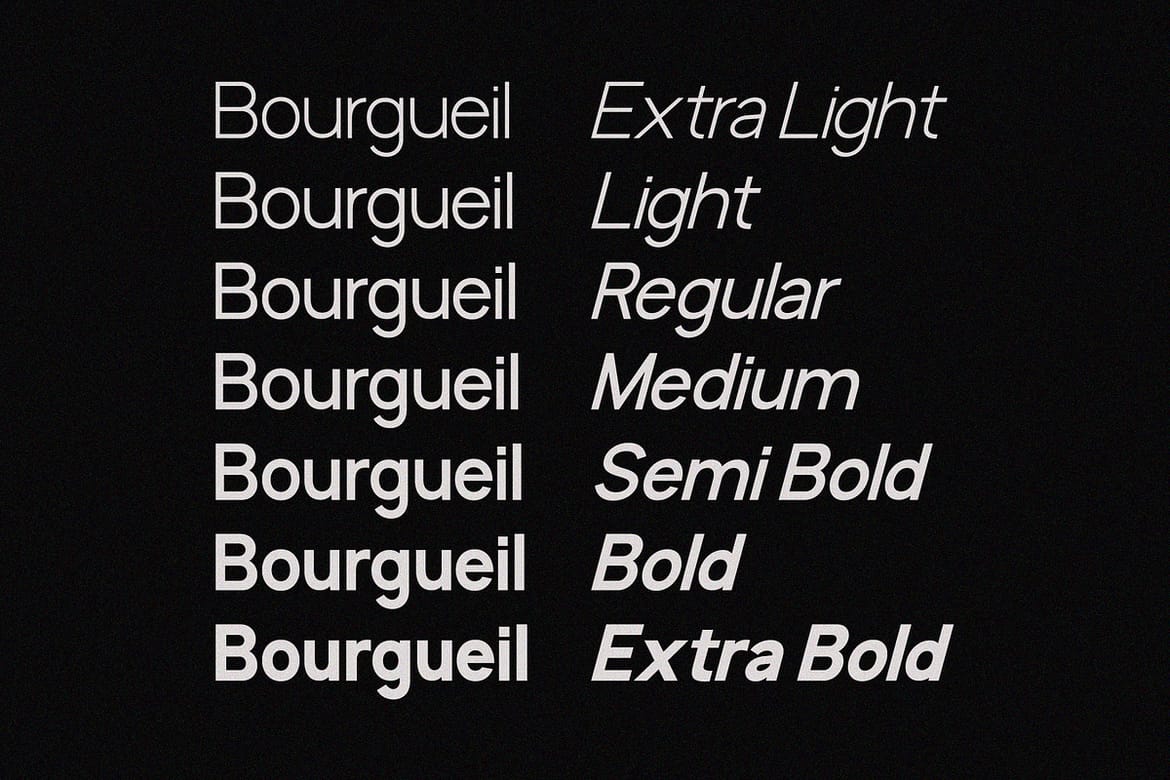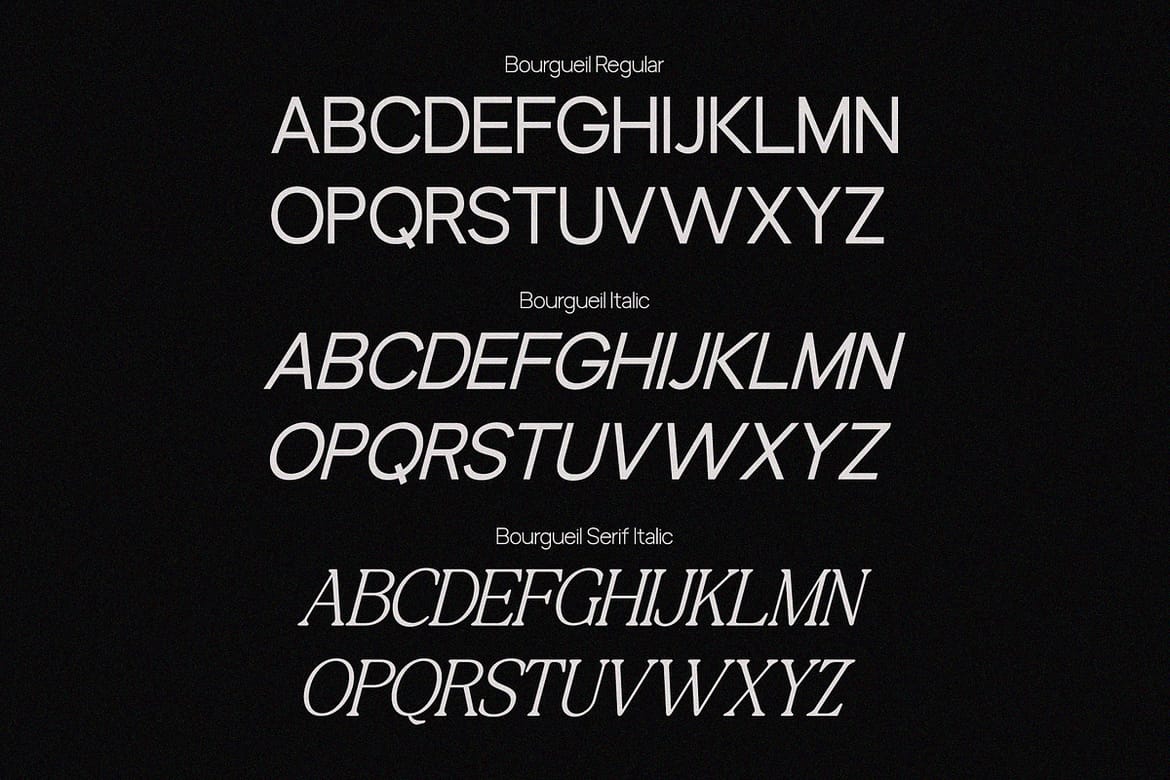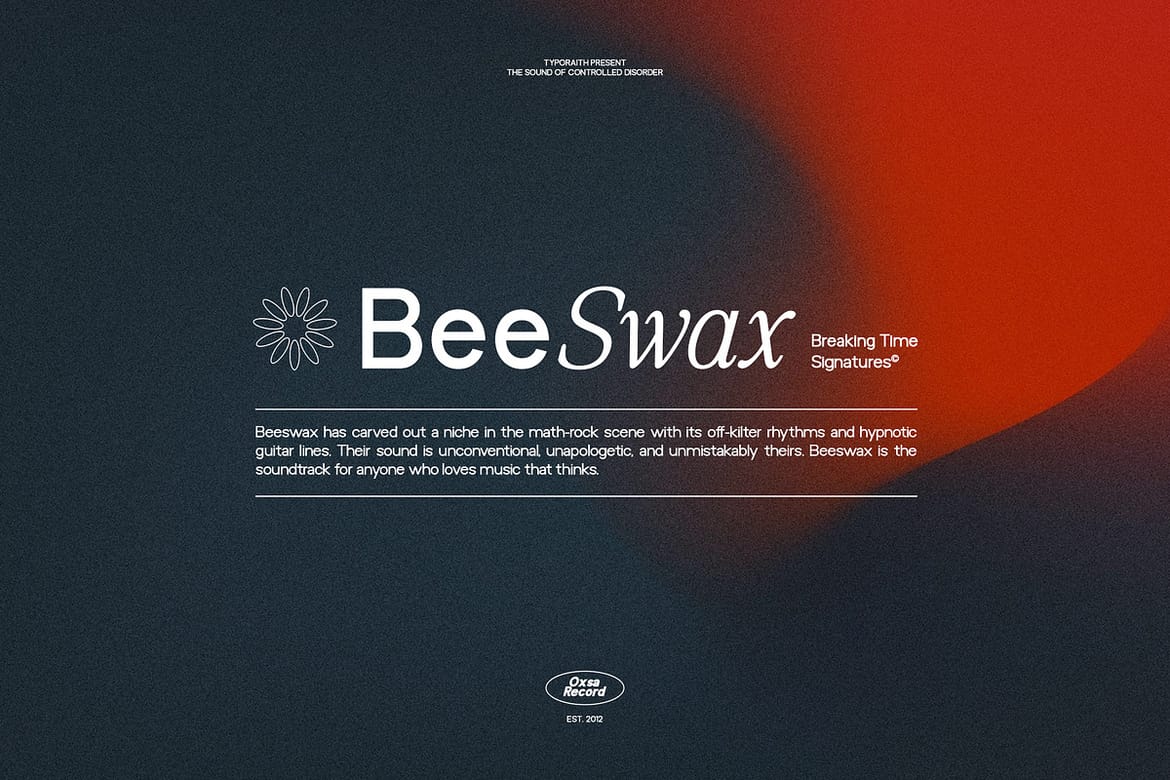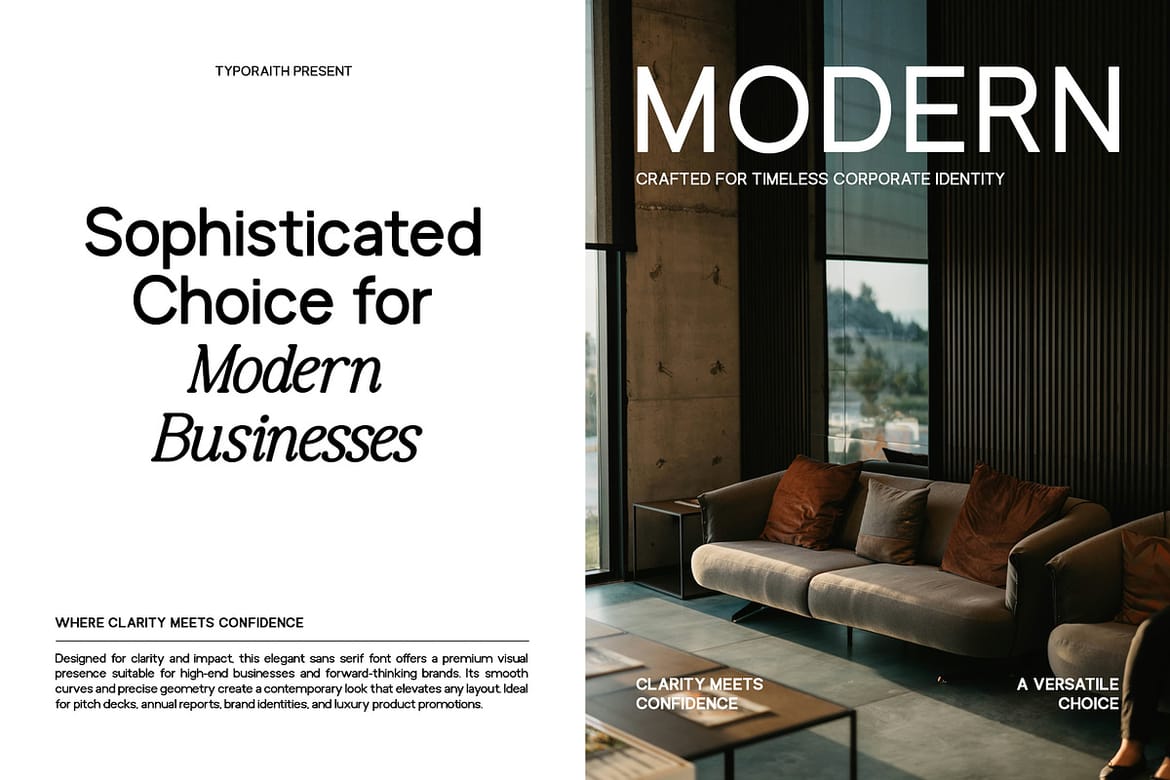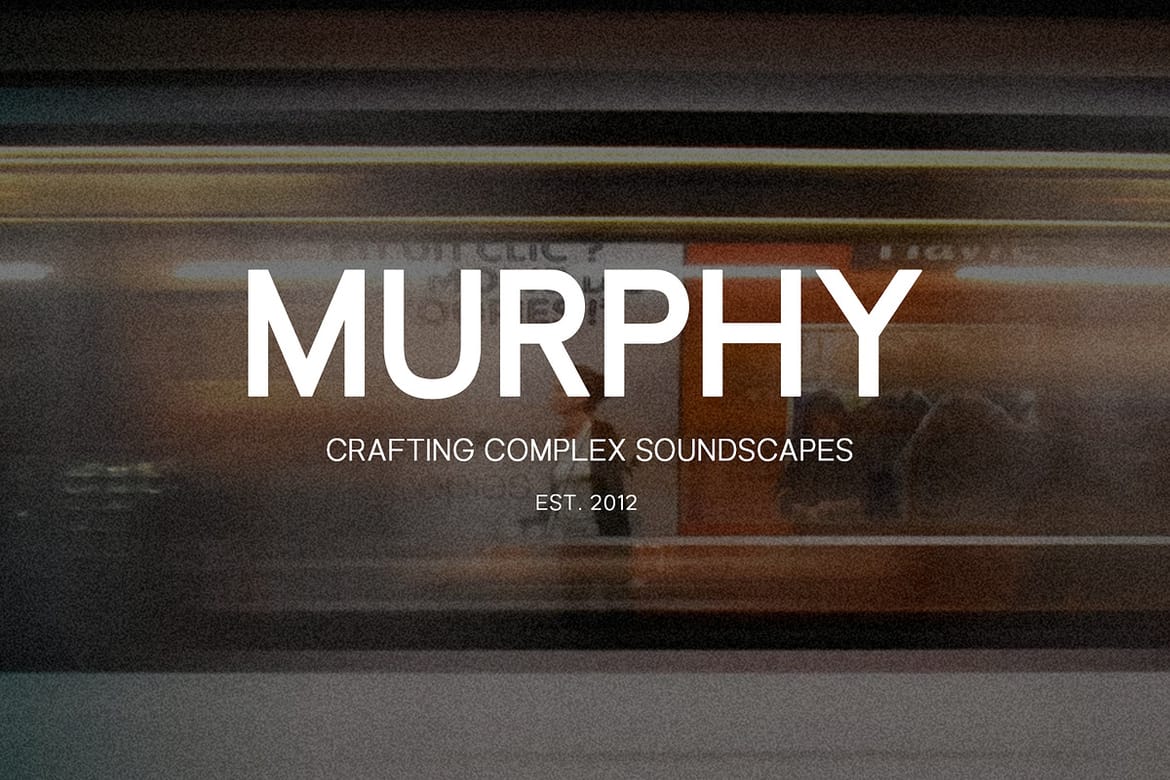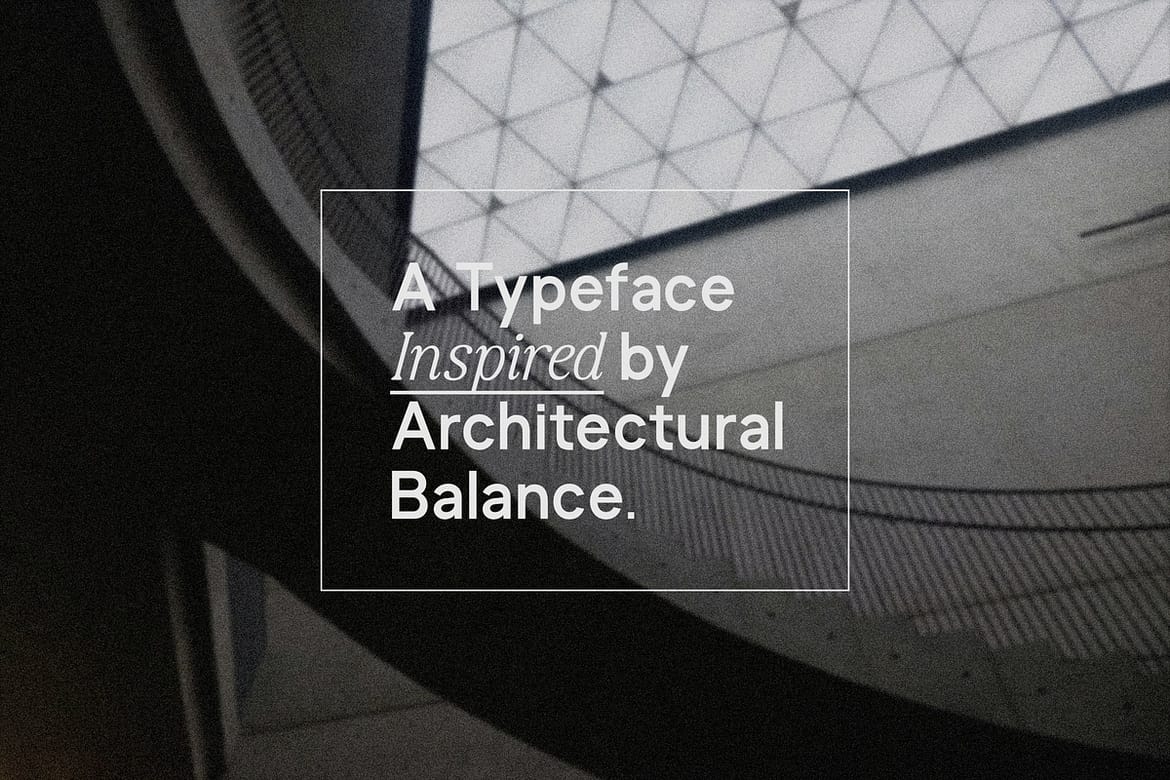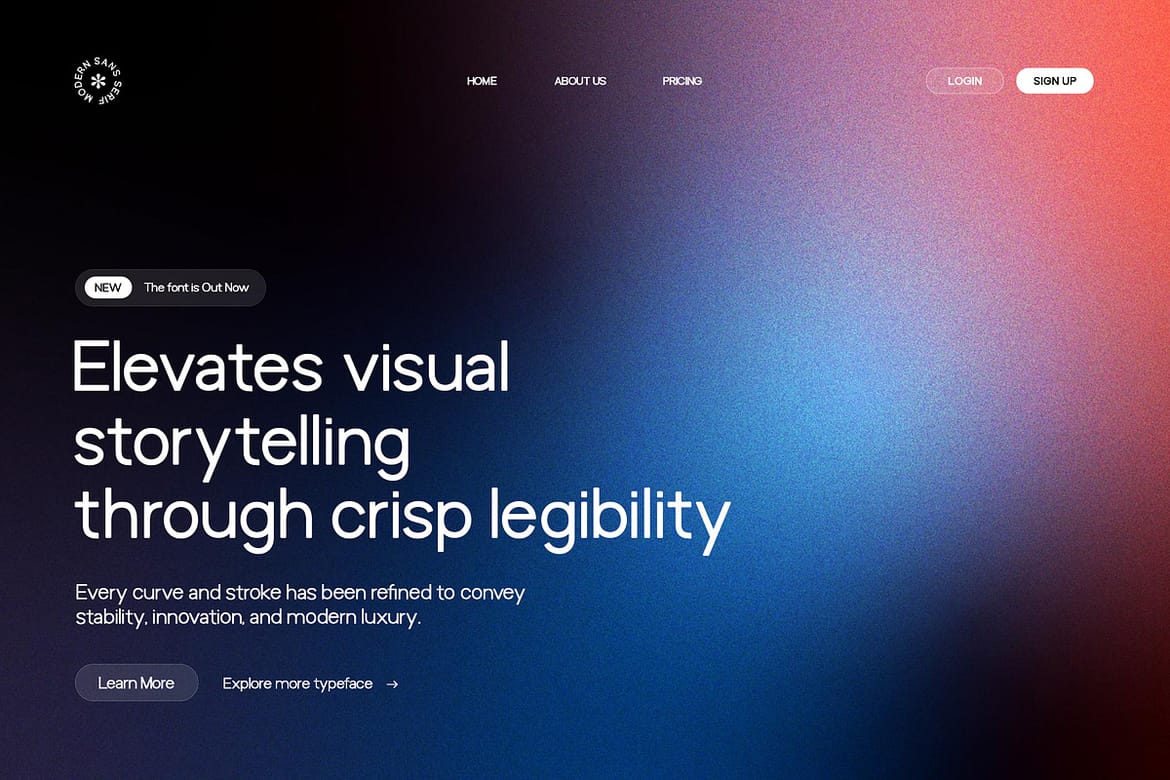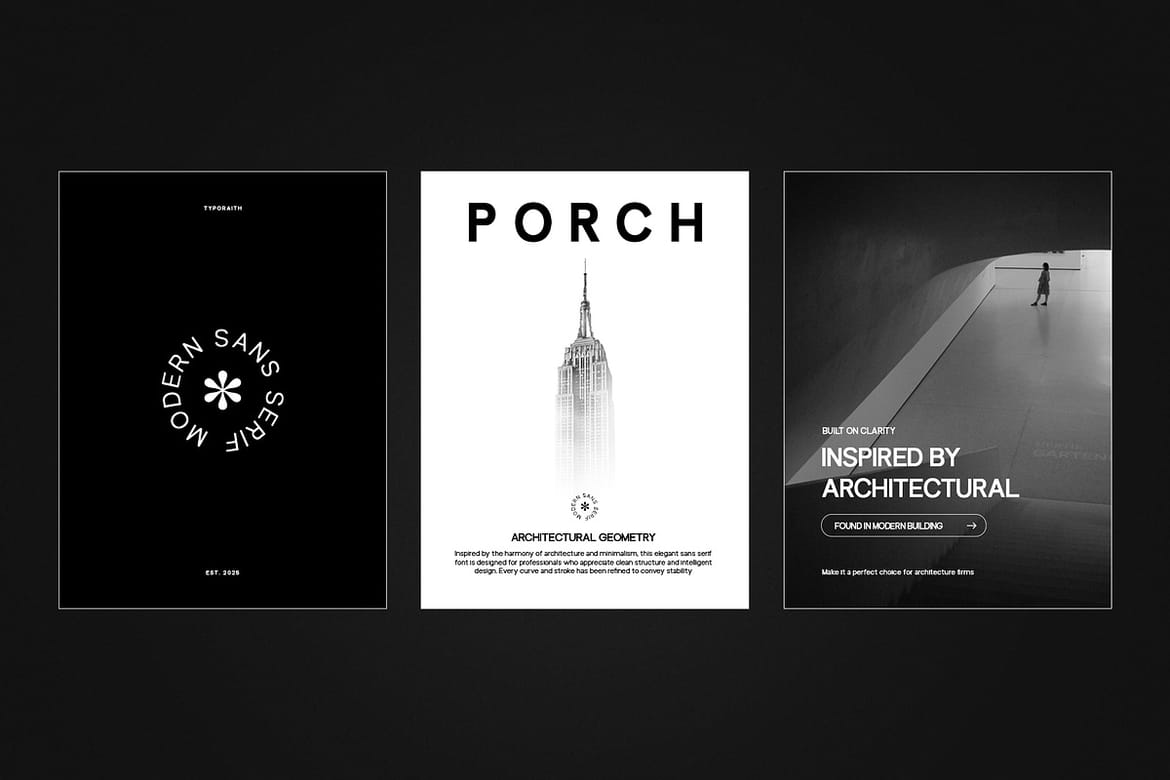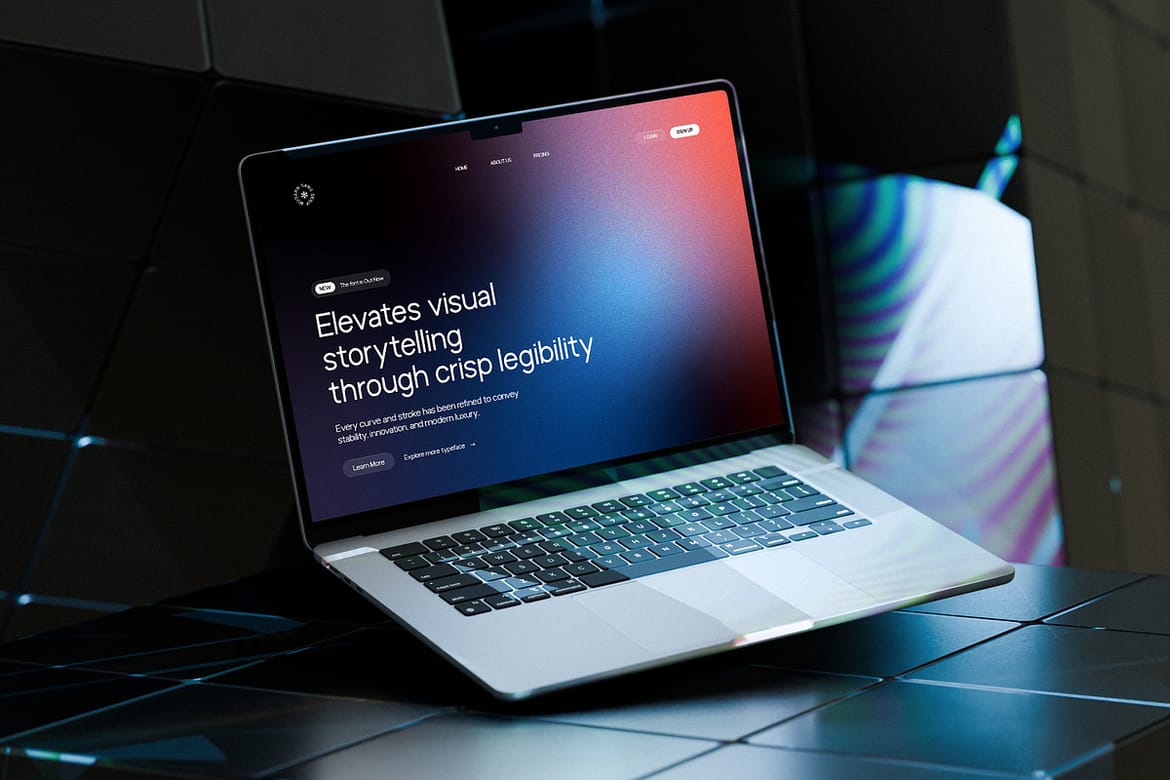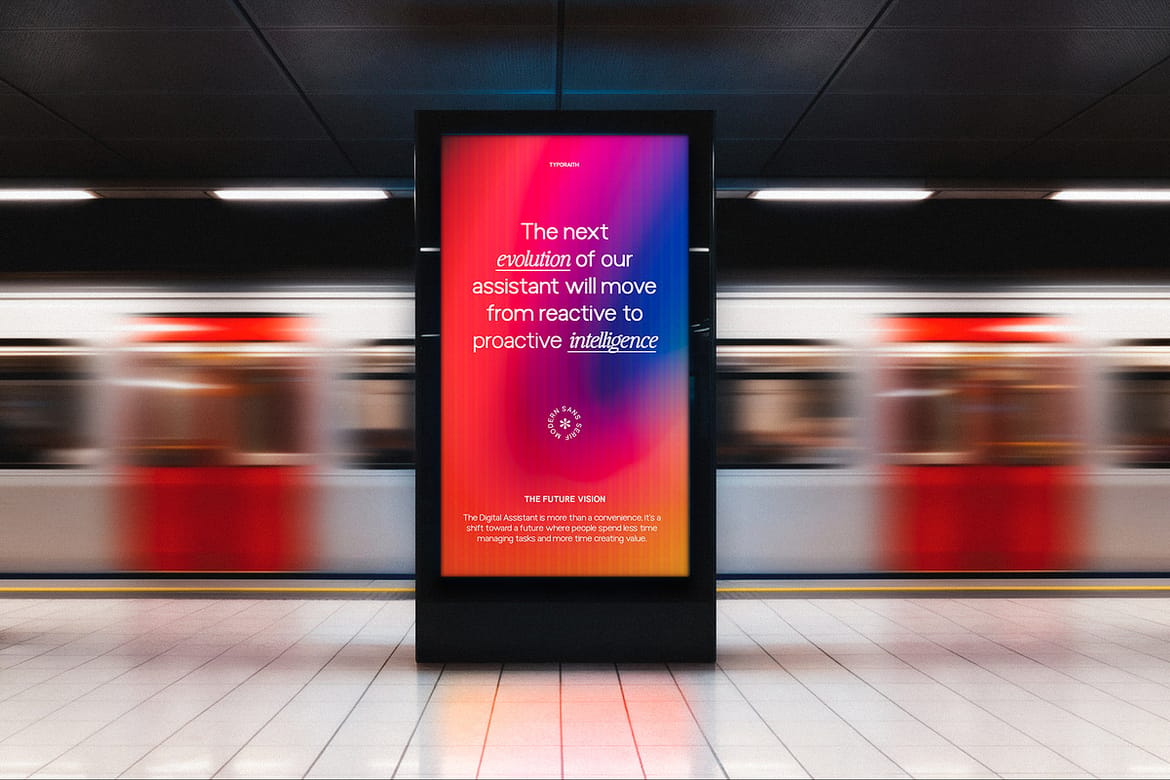
Bourgueil is a modern variable sans serif typeface designed for clarity, elegance, and versatility. Crafted with a clean structure and refined proportions, this font works seamlessly across branding, editorial design, logos, and digital interfaces.
With 7 variable weights and a matching italic style, Bourgueil gives designers full flexibility to create strong visual hierarchy — from subtle typography to bold, confident statements. Its balanced geometry makes it suitable for both minimal layouts and expressive compositions.
Whether you're building a brand identity, designing magazines, or crafting social media visuals, Bourgueil delivers a professional and contemporary typographic voice.
Variable font with 7 weights (Extra Light, Light, Regular, Medium, Semi Bold, Bold, Extra Bold)
Matching Italic style
Clean & modern sans serif design
Uppercase & lowercase letters
Numerals, punctuation & symbols
Multilingual support
Easy to use for print & digital projects
- Variable font with 7 weights and italic
- Clean modern sans serif for all uses
- Ideal for branding, editorial & digital